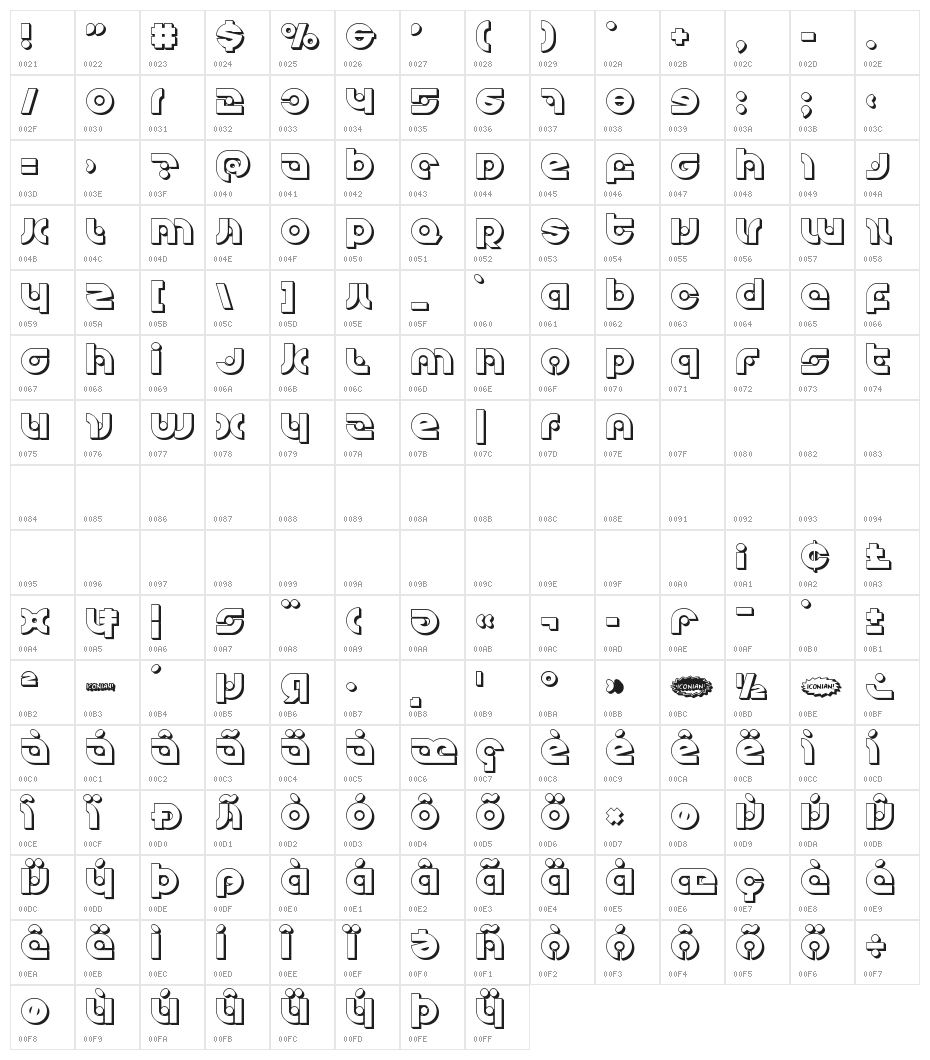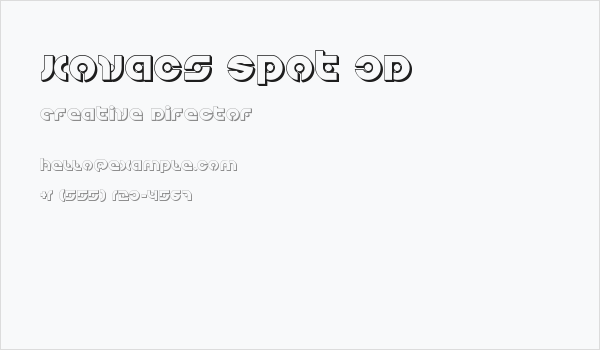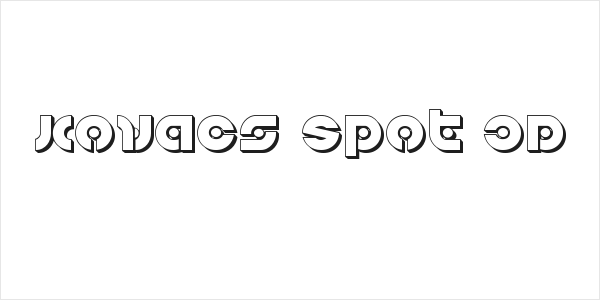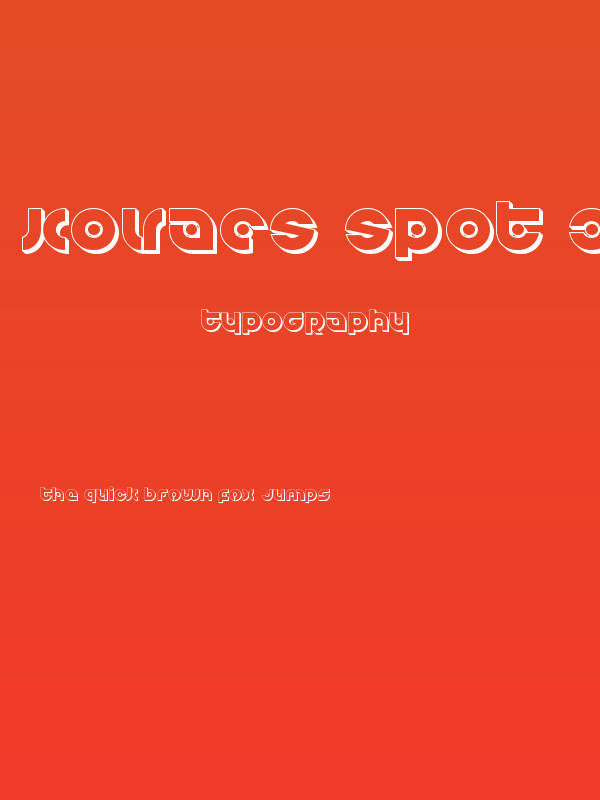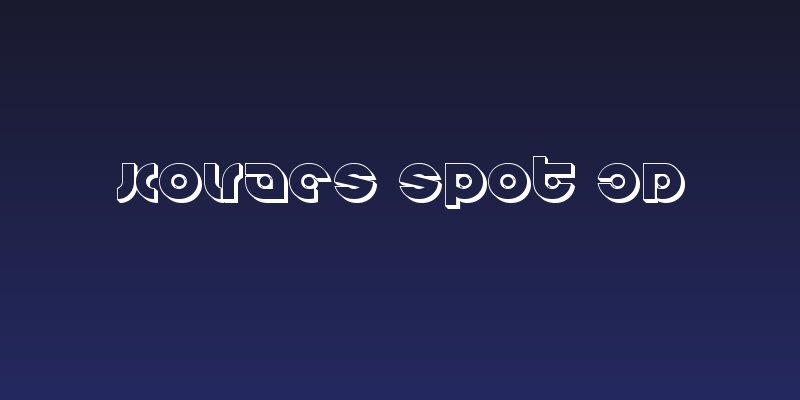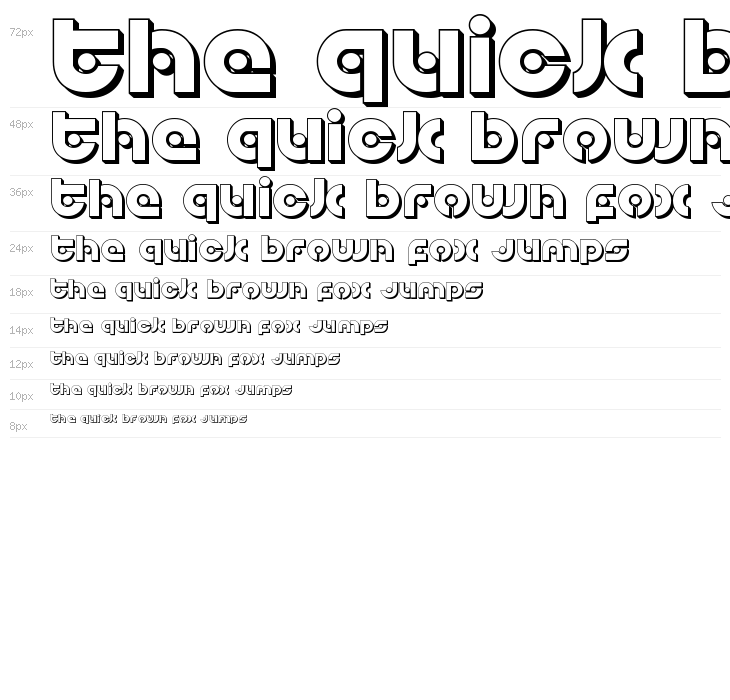
Kovacs Spot 3D Font
Kovacs Spot 3D Description
This font features a bold, geometric design with a three-dimensional effect, giving each character a sense of depth and shadow. The letters are constructed with thick, uniform strokes and rounded edges, creating a futuristic and playful appearance. The uppercase and lowercase letters share a consistent style, with the lowercase maintaining a similar height to the uppercase, enhancing readability. The numerals and special characters are designed to match the bold and dynamic style of the alphabet, making them stand out. This font's unique 3D effect is achieved through a clever use of outlines and shading, which adds a layer of complexity and visual interest.
| Proposed Projects | Ideal for futuristic designs, tech-related branding, video game titles, and creative posters. |